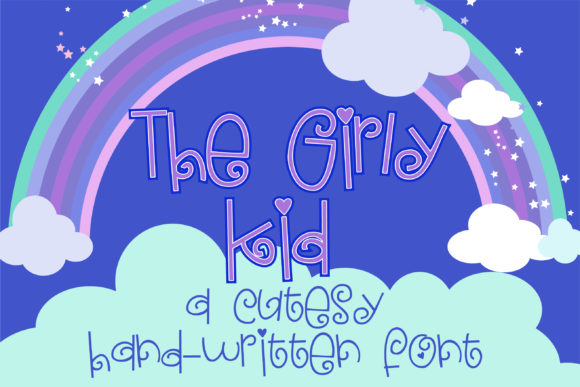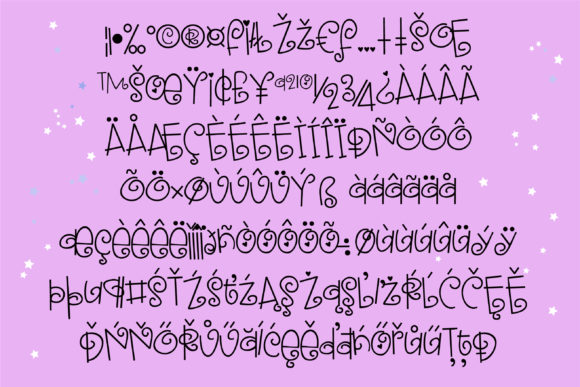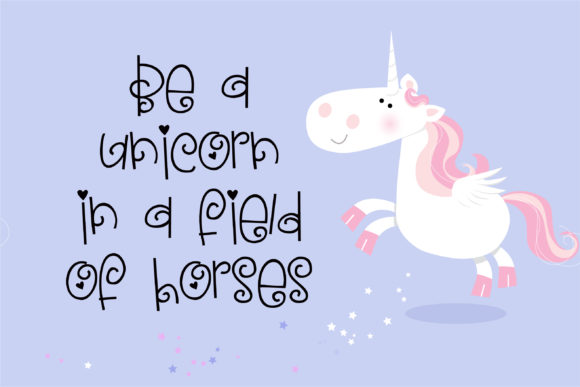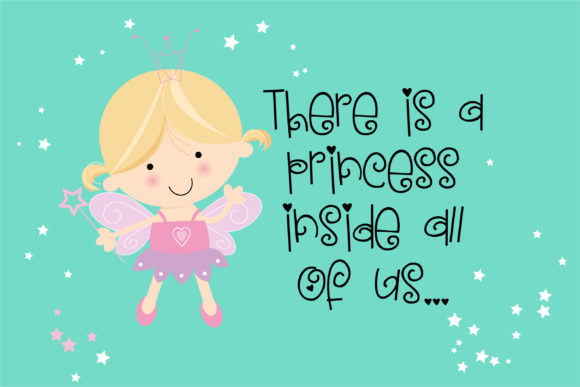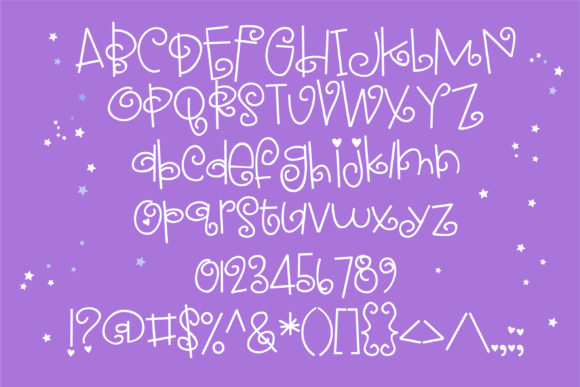
The Girly Kid Font
About The Girly Kid Font
The Girly Kid is a handwritten font with cutesy curls throughout. Great for adding playful charm to any project!